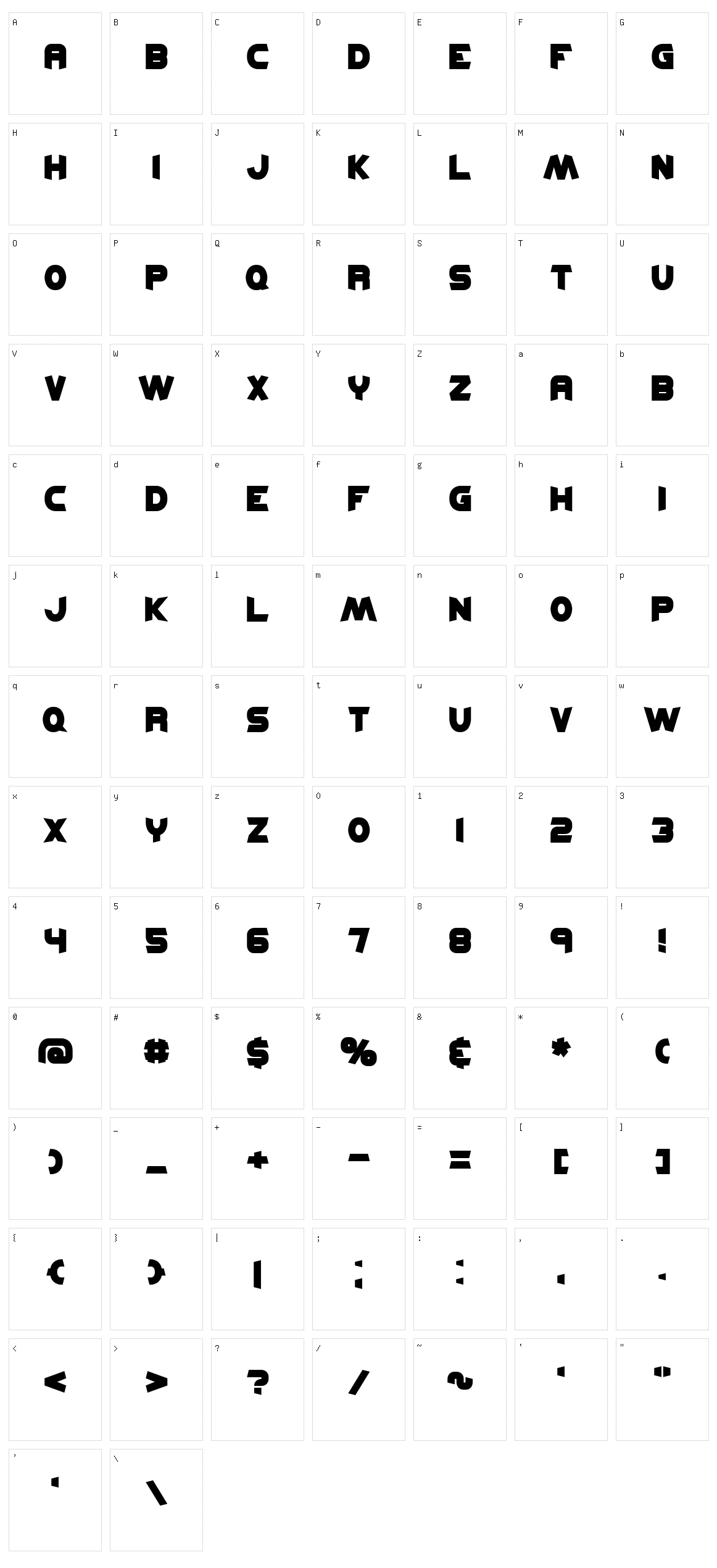
Kickflip BRK
Designed by: ?nigma
Kickflip Created by Brian Kent
This font is based on the logo I made for my game Kickflip. All of
the 'prongs' in each character slant inward or outward, depending on
what Case the character is.
NOTE: This font is all caps, 'Case' refers to where the characters
are located (in an Upper or Lower Case position).
'Uppercase' Characters slant like this:
'Lowercase' Characters slant like this:
Since the Uppercase and Lowercase characters slant differently, I
put in Extra 'Lowercase' versions of all of the basic characters.
There are also a couple of Extra characters for I, M, N(x2), W, Y
and Z (for Upper and Lowercase).
Extra Characters